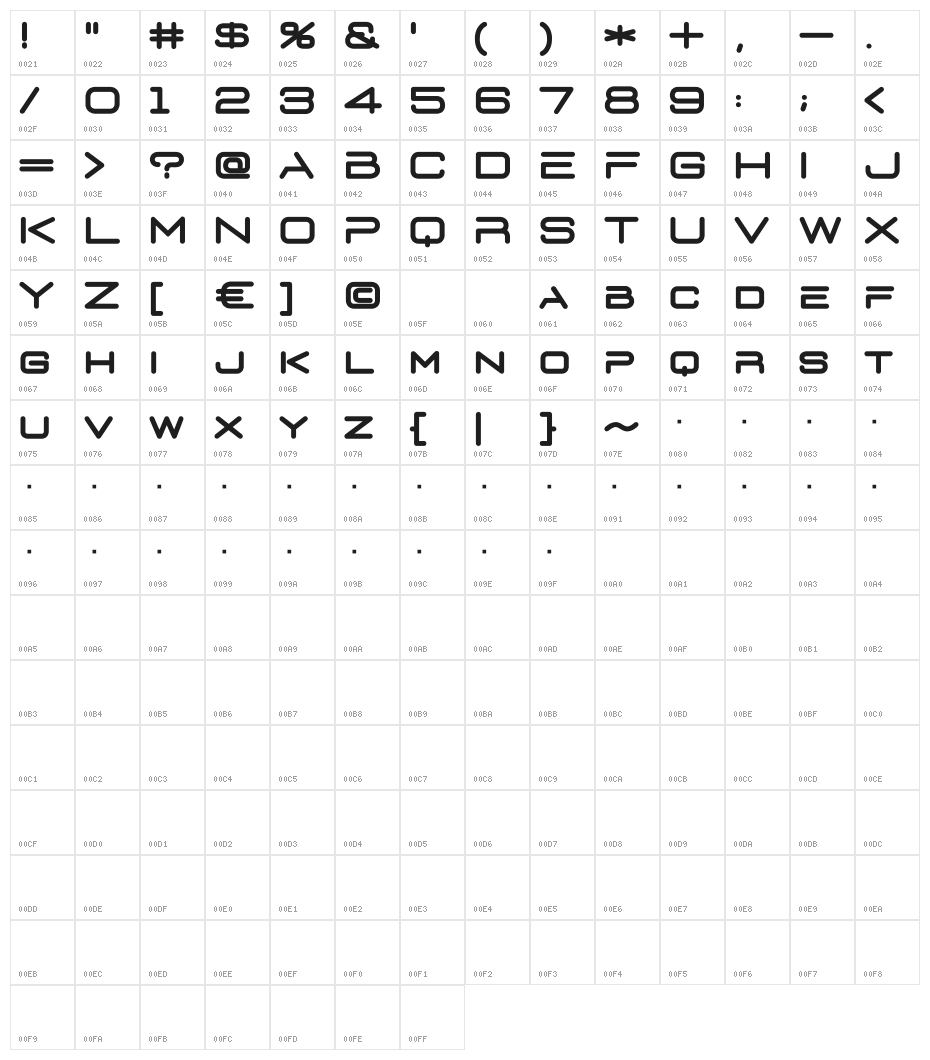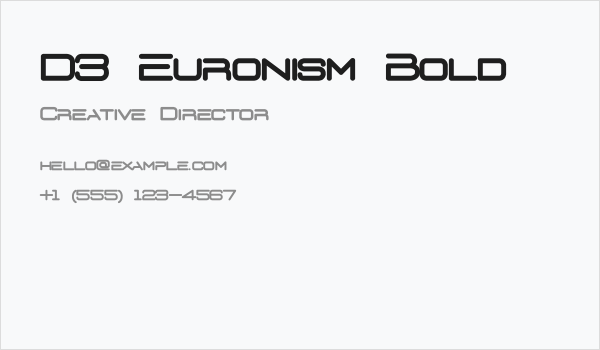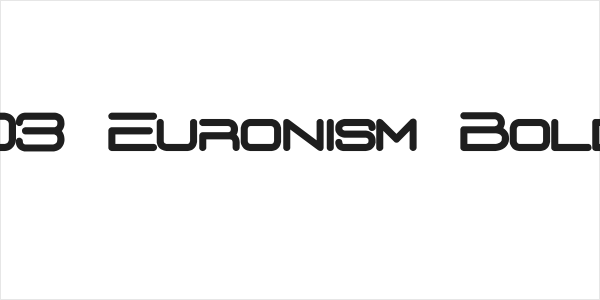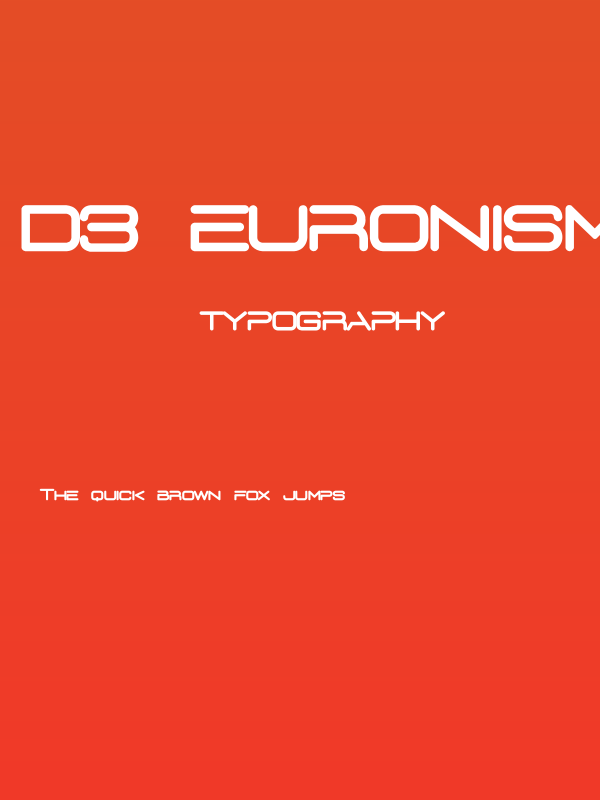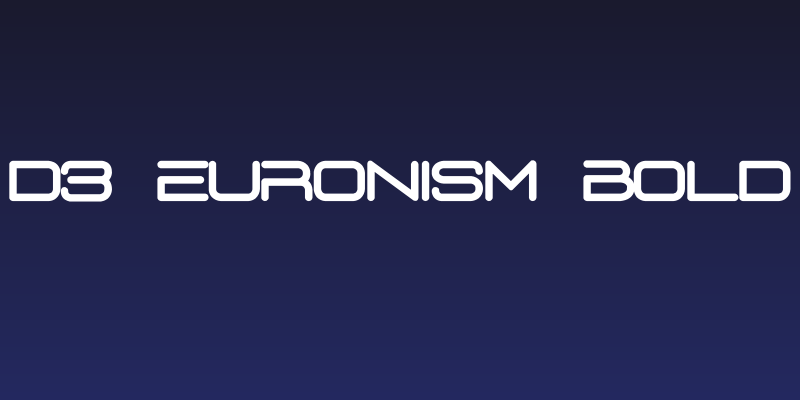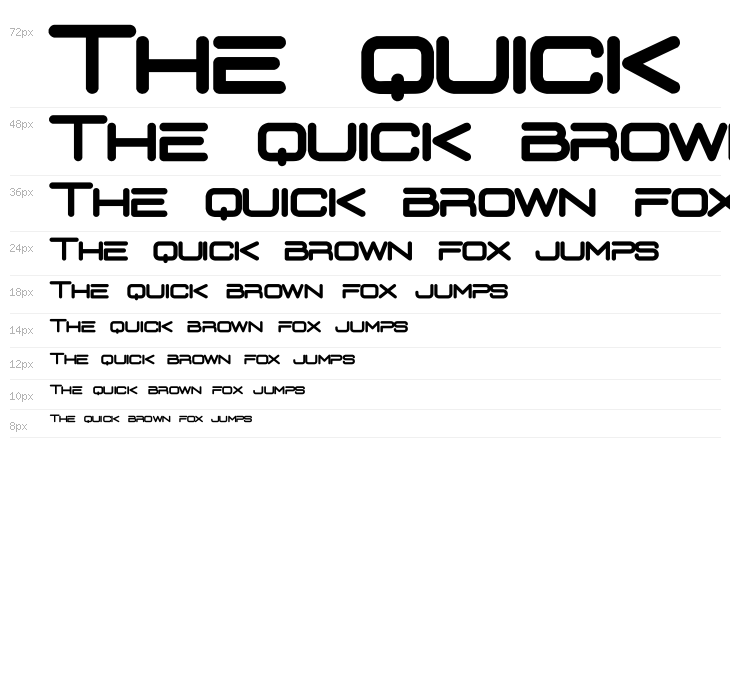
D3 Euronism Bold Font
✎ Futuristic
| 分类 | Futuristic |
| 整体风格 | Futuristic |
| 使用场景 | Logos, Headlines, Digital Interfaces |
| 推荐项目 | Ideal for technology branding, sci-fi themed designs, modern advertising, and digital interfaces. |